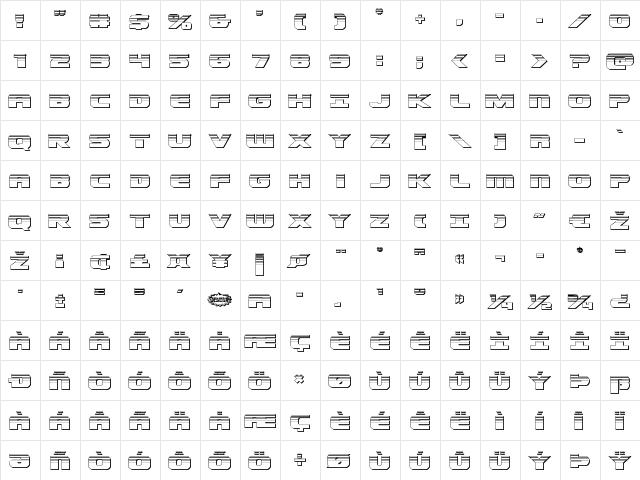
Dekaranger Chrome Regular
Design Context for Dekaranger Chrome Typeface
Dekaranger Chrome is a composed and adaptable typeface that performs quietly and consistently across a wide range of design contexts.